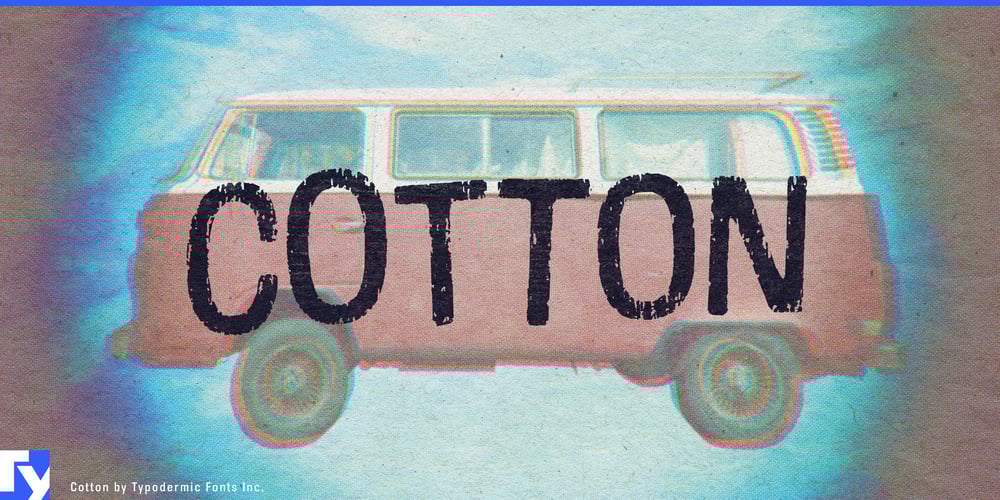
Cotton Font Family was designed by Ray Larabie and published by Typodermic. Cotton contains 1 styles and family package options. Wrap your designs in the soft, nostalgic embrace of Cotton, a typeface that weaves the casual charm of vintage t-shirts into the fabric of modern typography. This isn’t just a font; it’s a time machine that transports your message back to the golden era of the twentieth century, while remaining refreshingly relevant for today’s design landscape.Cotton’s unique texture and informal style are like a favorite old tee—comfortable, familiar, yet always capable of making a statement. It’s the perfect choice for designers looking to break free from the starched collars of conventional typography and add a touch of laid-back cool to their projects. But Cotton isn’t just about looking good—it’s about standing out. In OpenType-savvy applications, Cotton reveals its true versatility with letter pair ligatures that add a dash of the unexpected to your text. These thoughtful details break up the monotony of standard typefaces, ensuring that your message doesn’t just blend into the background but pops off the page with vintage flair.Cotton’s appeal is as widespread as its language support. Fluent in over 100 Latin-based European writing systems, this typeface ensures your message maintains its casual cool whether you’re designing for a local band in Lisboa or crafting a hip café menu in Helsinki. From Afrikaans to Zulu, Cotton speaks the language of style with a accent. Imagine the possibilities: a retro-inspired logo for a craft brewery, eye-catching headlines for a lifestyle magazine, or whimsical signage for a bohemian boutique. Cotton isn’t just a typeface—it’s a mood, an attitude, a nod to the past with a wink to the future.So why settle for starched and pressed when you can have soft and distressed? Let Cotton be the thread that ties your design together, adding texture, personality, and a touch of nostalgia to every project. It’s time to break free from the tyranny of boring fonts and embrace the casual revolution. Download Cotton today and watch as your designs transform from bland to grand, from mundane to memorable. Remember, in the world of typography, Cotton is always in fashion–comfortable, classic, and effortlessly cool.